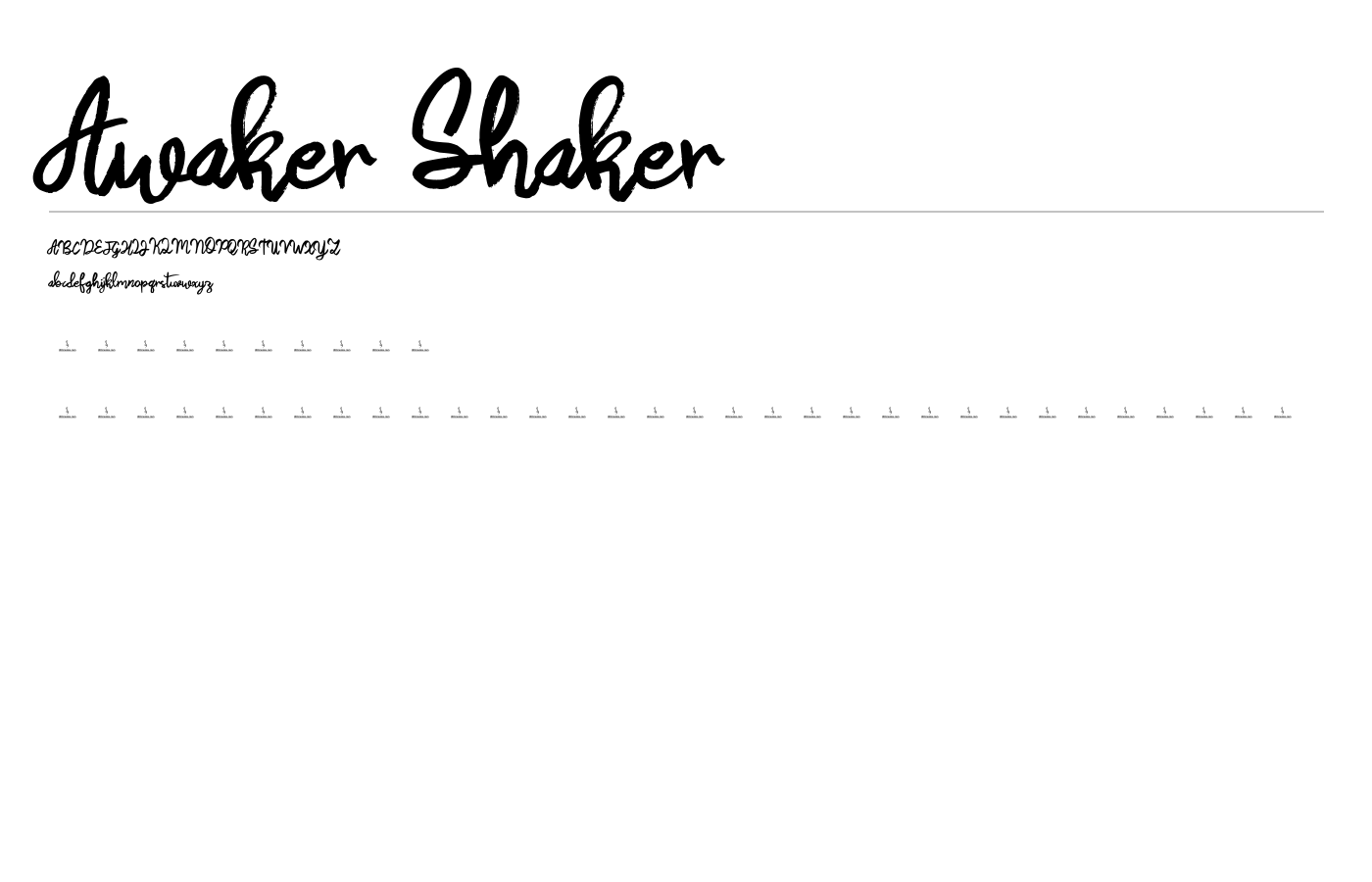
Awaker Shaker is a lively and energetic script font with a bold, hand-drawn style that captures a casual yet expressive feel. Its thick strokes and slightly irregular shapes give it a dynamic personality ideal for creative projects, making it perfect for logos, posters, and branding that want to convey a playful, authentic vibe. This font works best in display settings where its unique, handwritten character can shine.
Awaker Shaker Font
About Awaker Shaker Font
| Font family | Awaker Shaker Font |
| Designer | Jonathan S Harris |